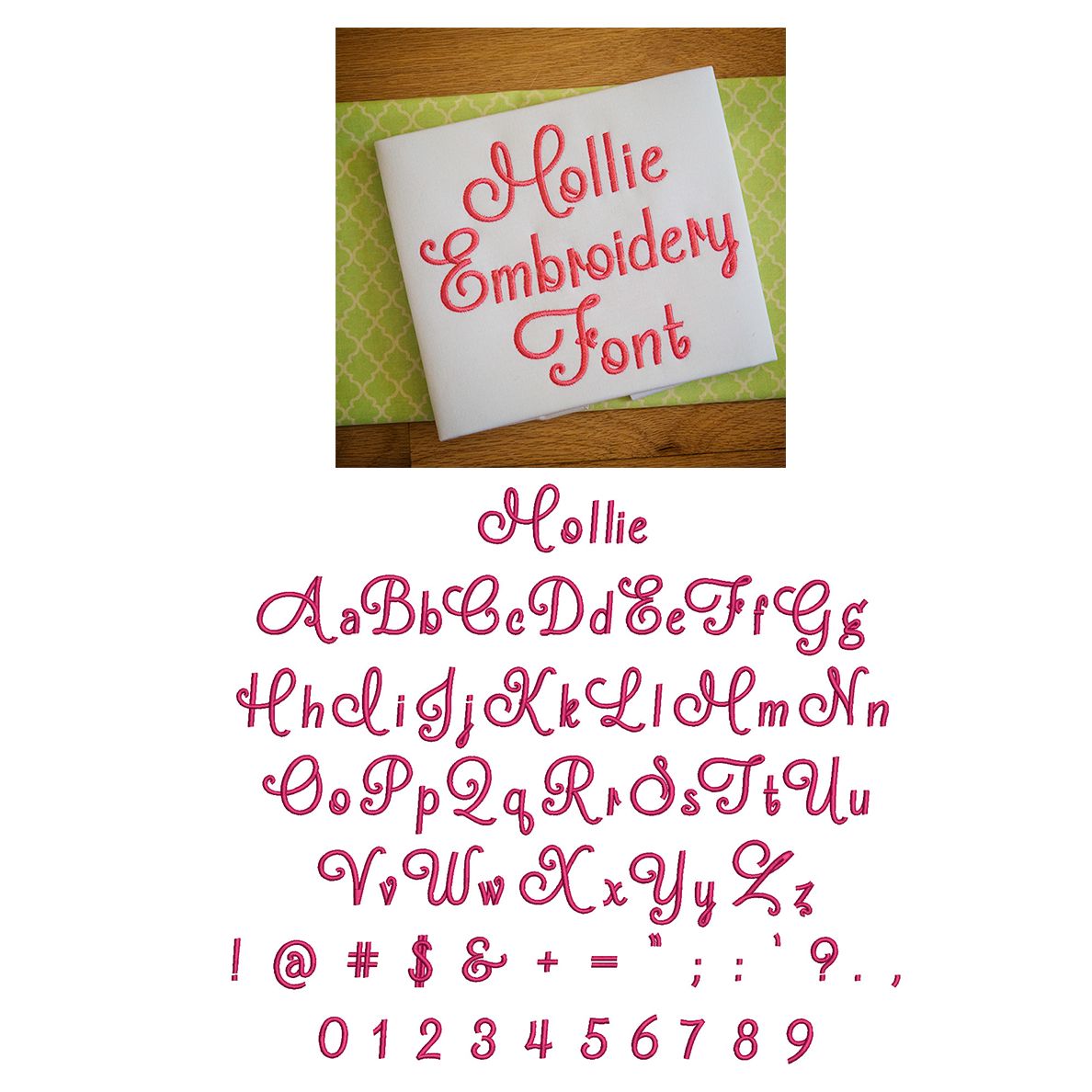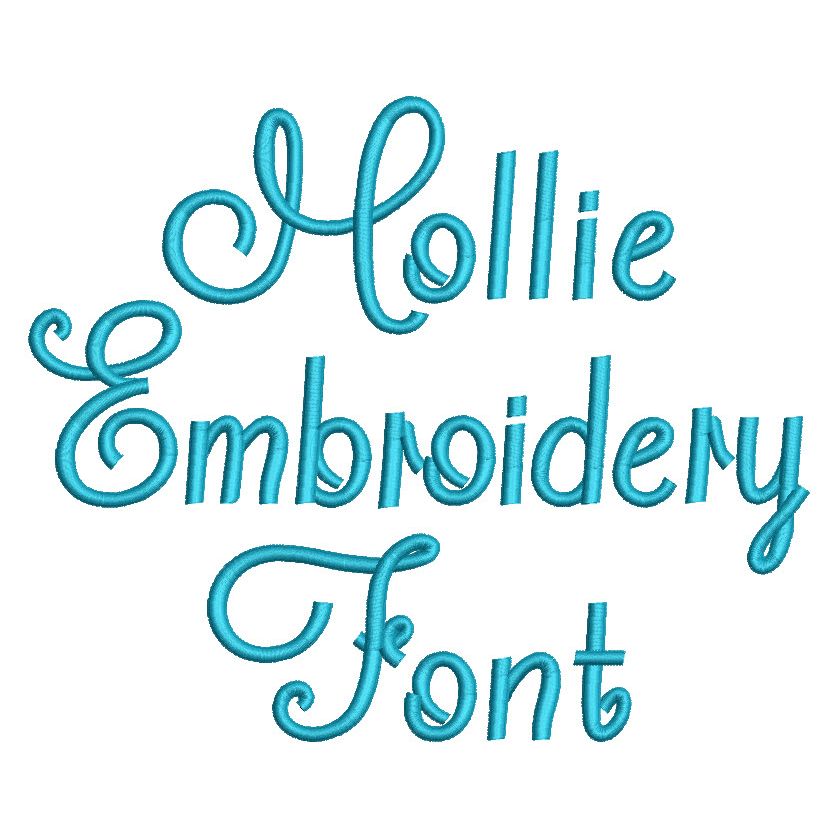
Mollie Satin Stitch Embroidery Font
Lovely script style embroidery font!  All of our font alphabets are 100% manually digitized to bring you maximum stitch quality.